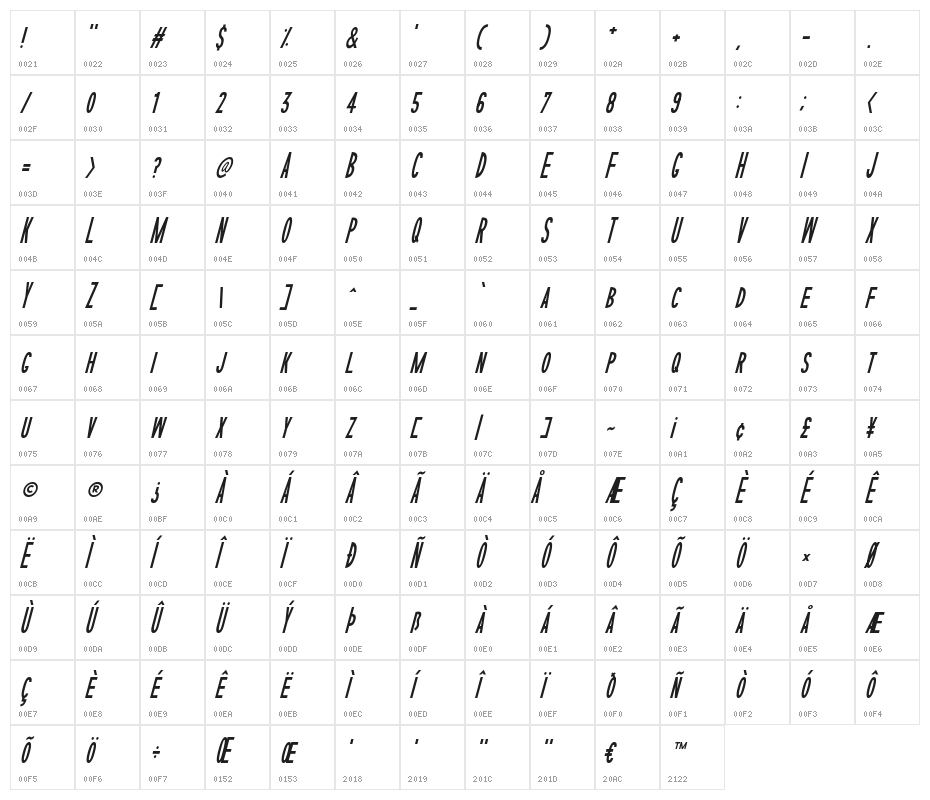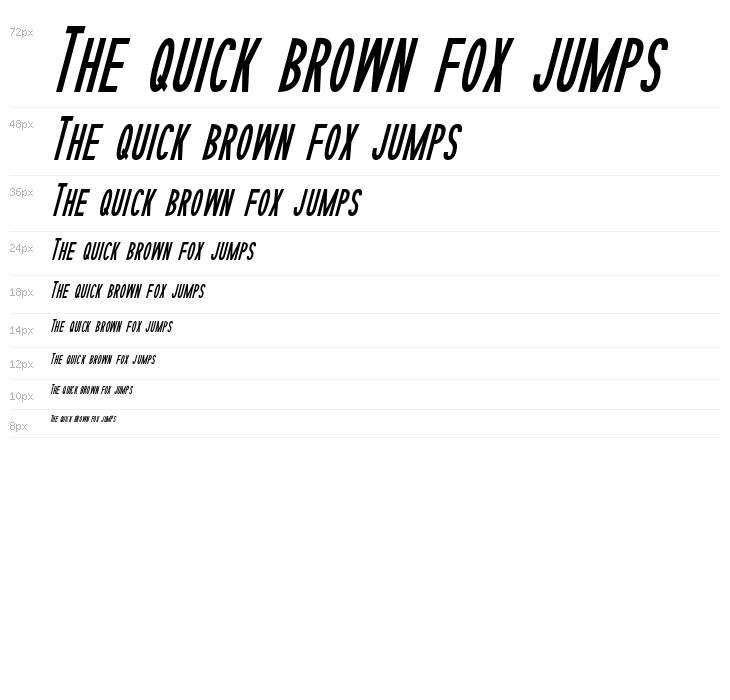
Sophisticated Slims Tight Italic Font
Sophisticated Slims Tight Italic Description
This font features a sleek and modern design with a distinct italic slant, giving it a dynamic and forward-moving appearance. The characters are elongated and condensed, creating a sophisticated and streamlined look. The strokes are consistent in weight, providing a uniform and clean aesthetic. The uppercase and lowercase letters maintain a cohesive style, while the numerals and special characters complement the overall design. This font's tight character spacing enhances its compact and elegant feel, making it suitable for various creative applications.
Proposed ProjectsIdeal for fashion branding, modern advertising, dynamic posters, and sleek packaging designs.